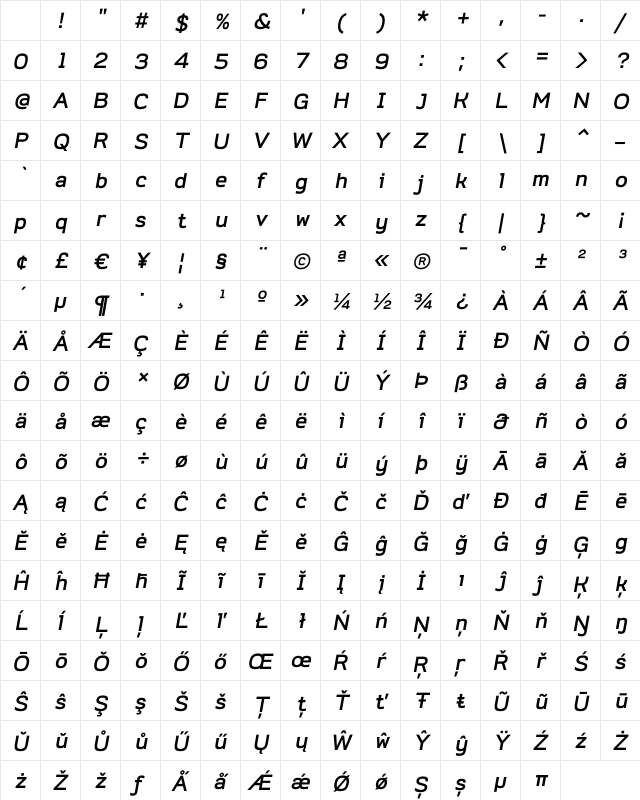
Complete Do Gothic Bold Oblique glyph index. Displaying only characters natively supported by Do Gothic Bold Oblique font.
Do Gothic takes a clean, functional approach - its unadorned letterforms prioritise legibility and work reliably across screen and print environments. The slanted form adds forward momentum and visual energy. Its bold stroke weight gives it real presence on the page.
Font Pairing: Use Do Gothic for headlines alongside a lighter-weight sans or serif for body copy to establish clear visual hierarchy.
Pro Tip: Use Do Gothic for UI labels, navigation, and short-form body copy where clean legibility is the priority.